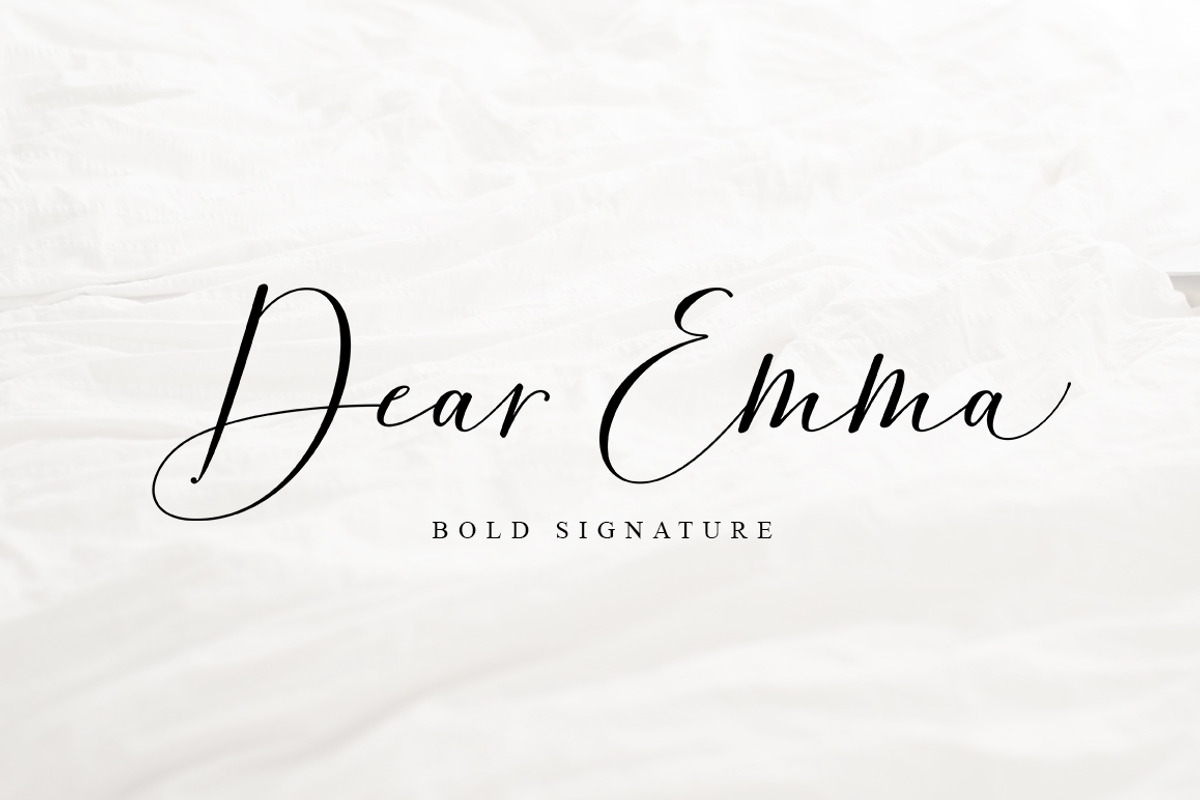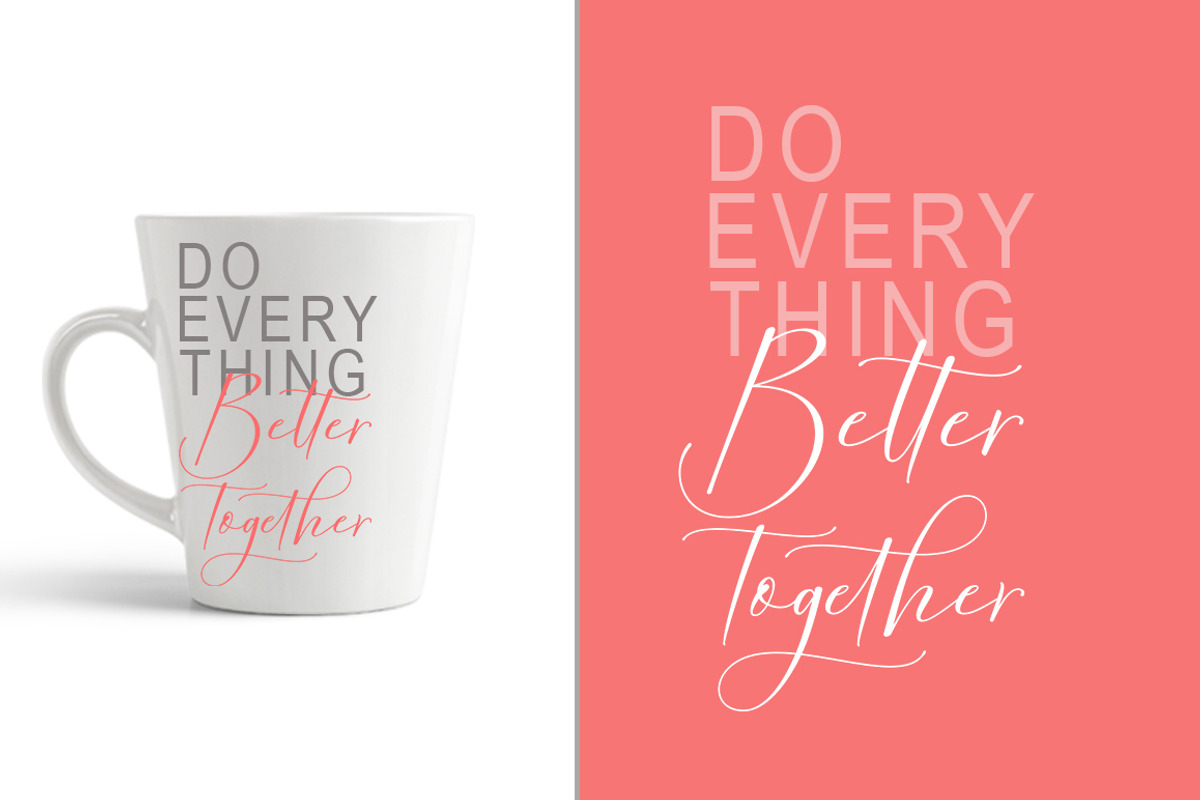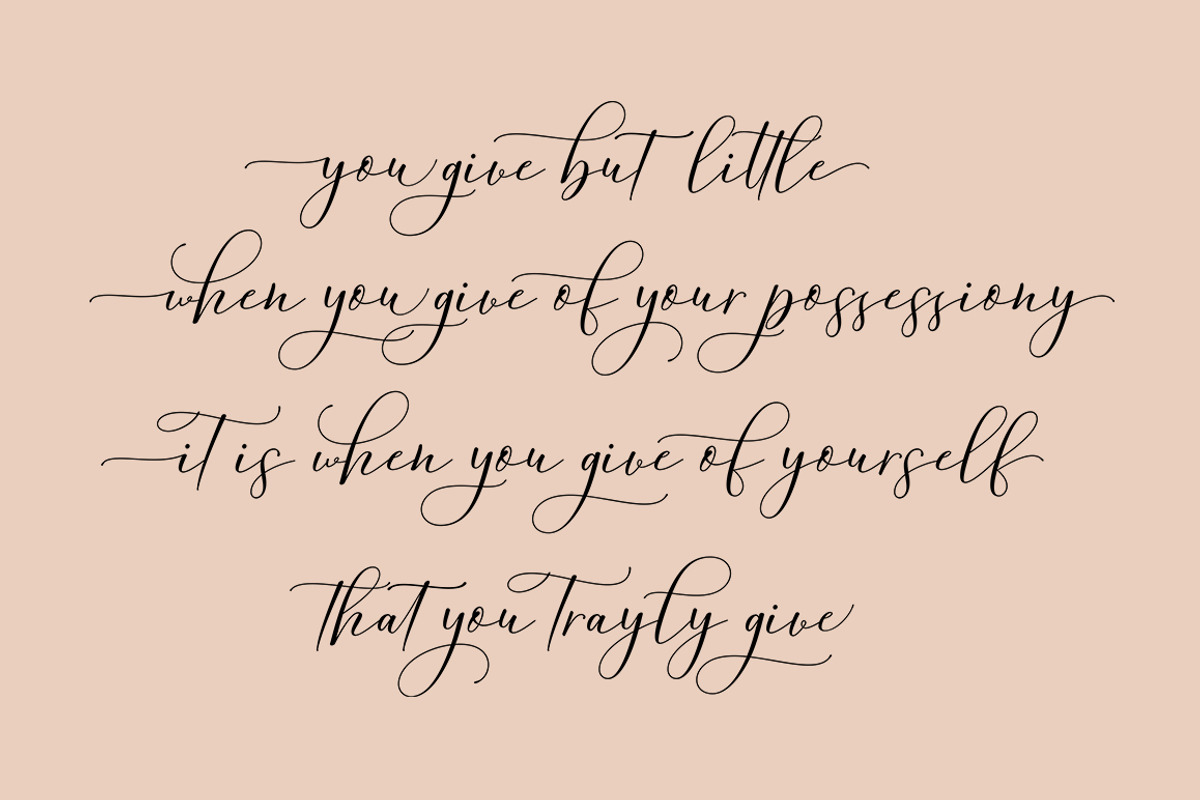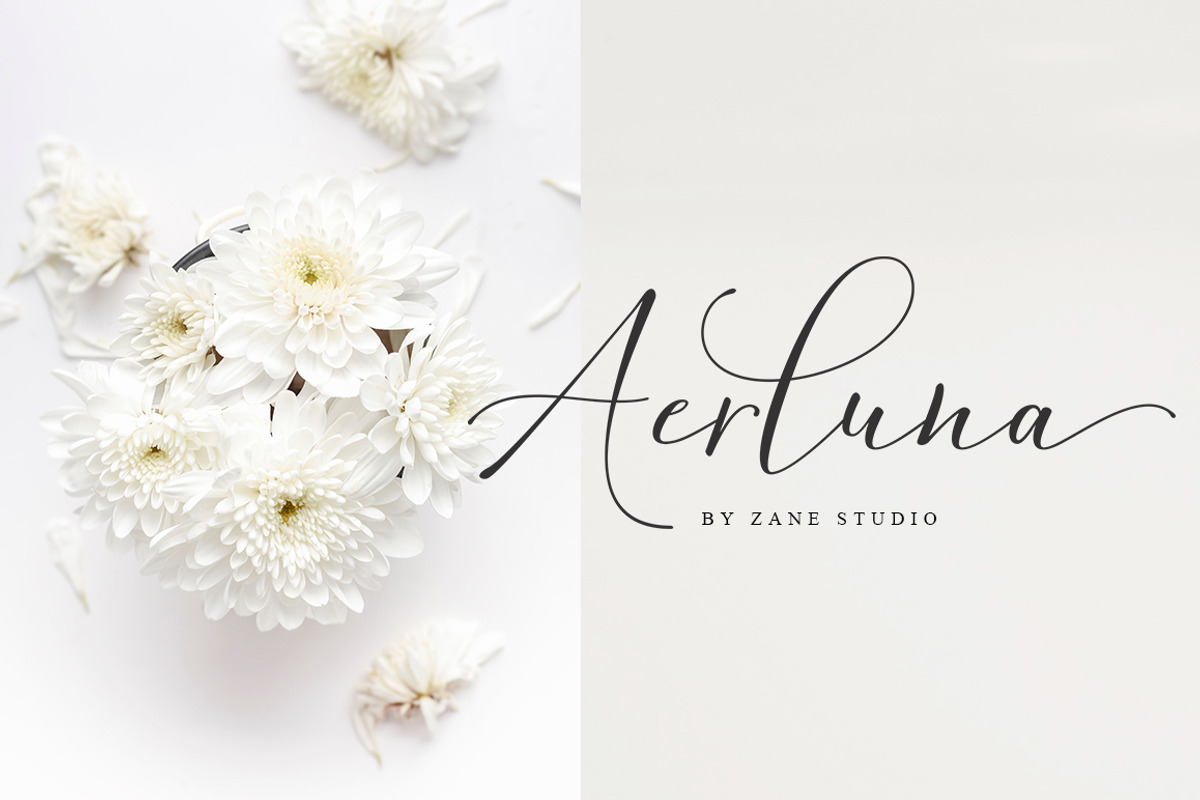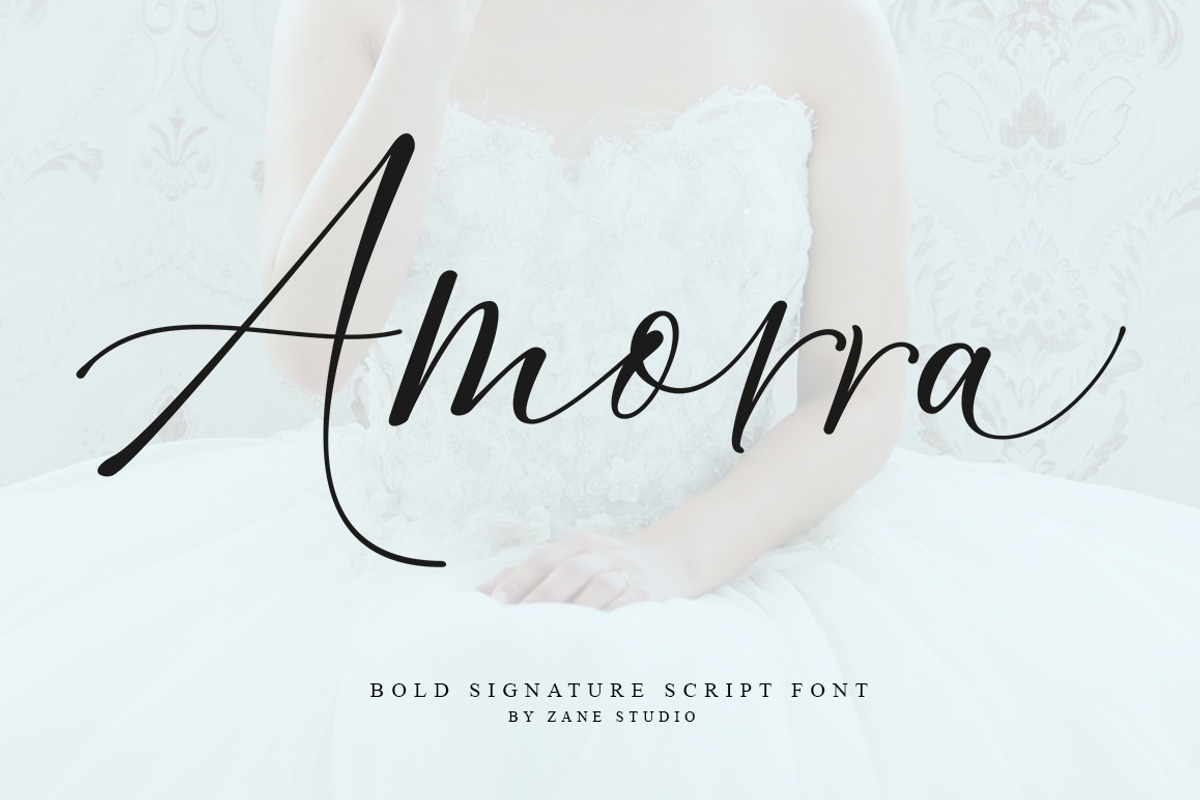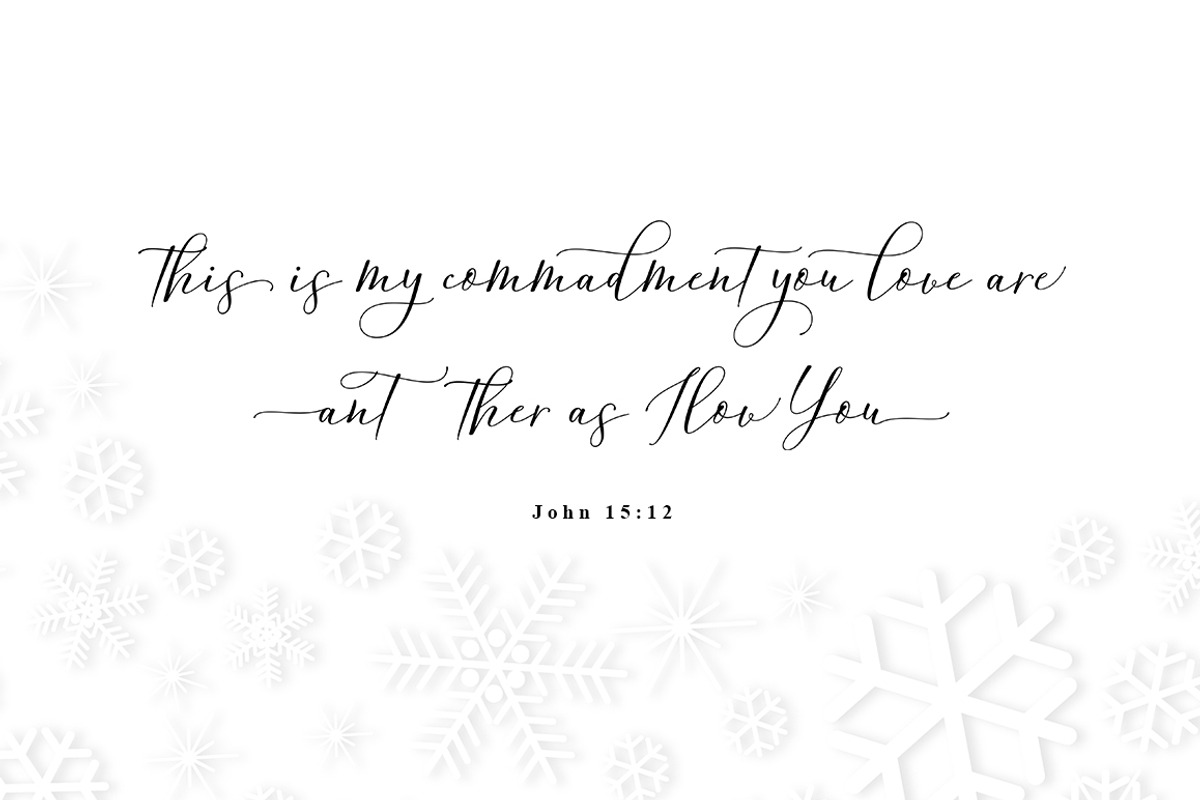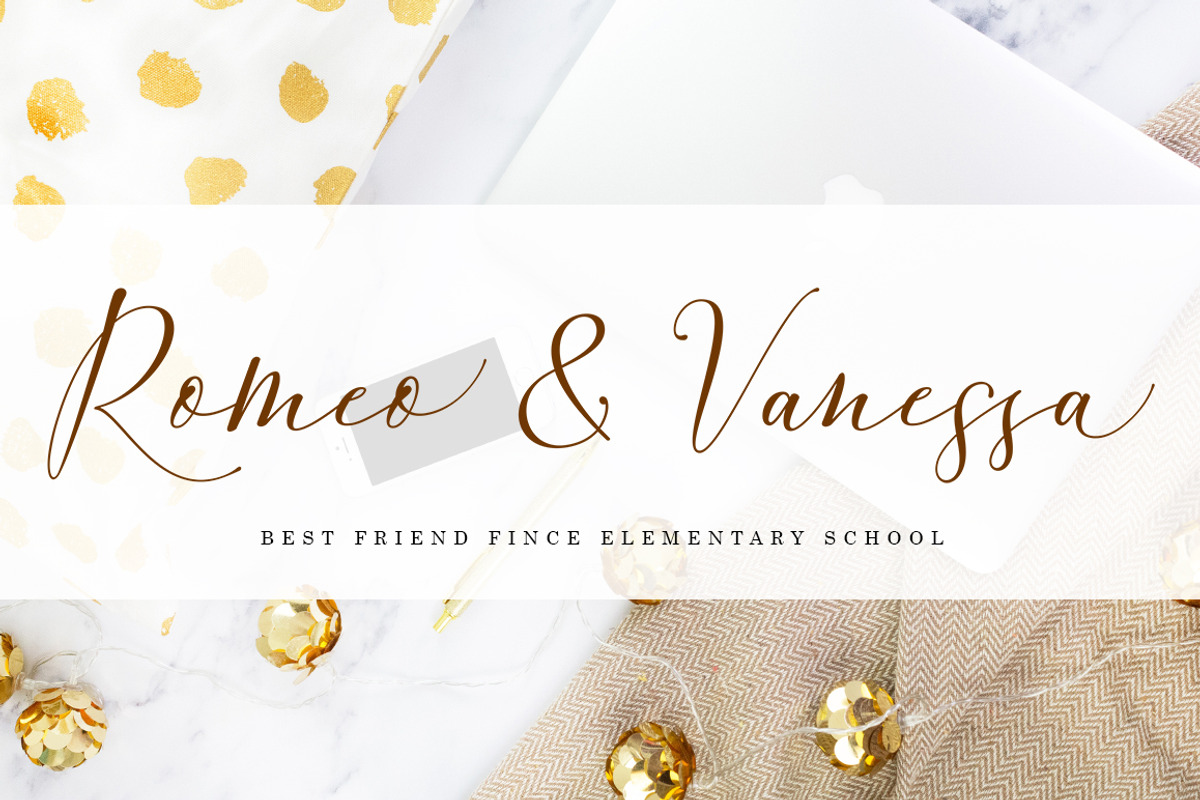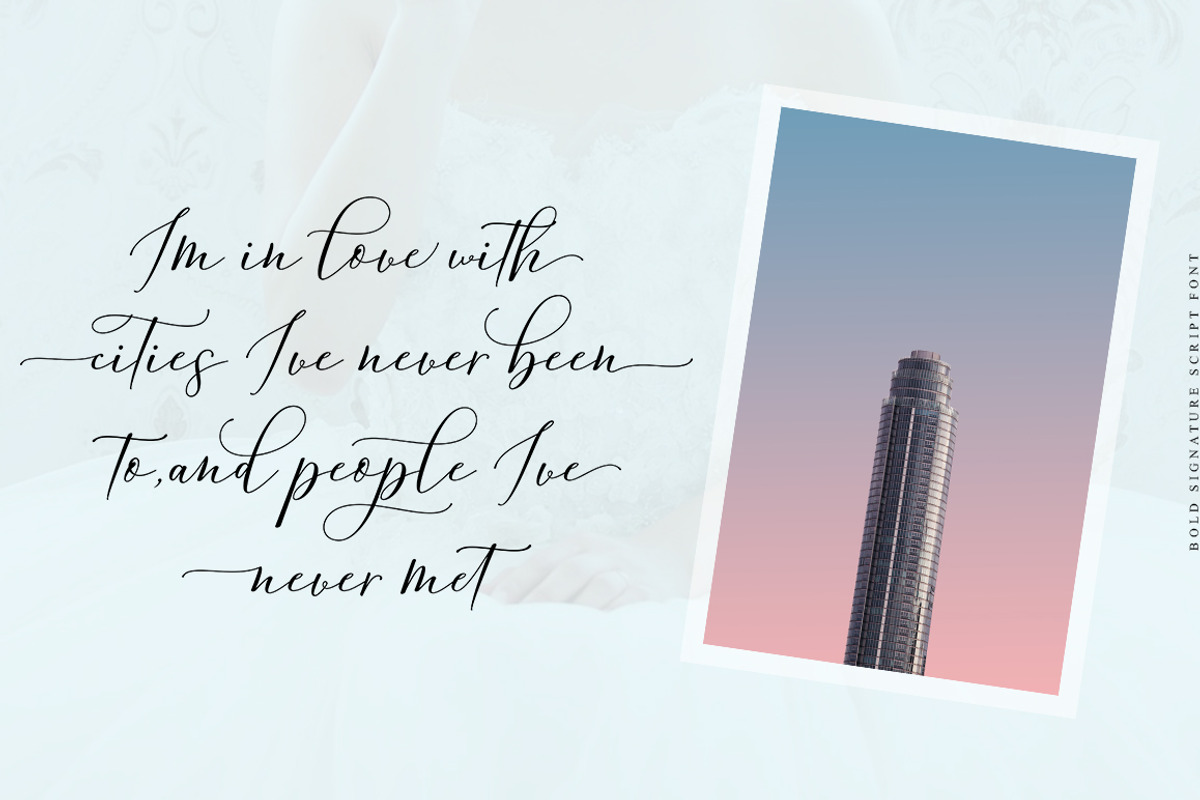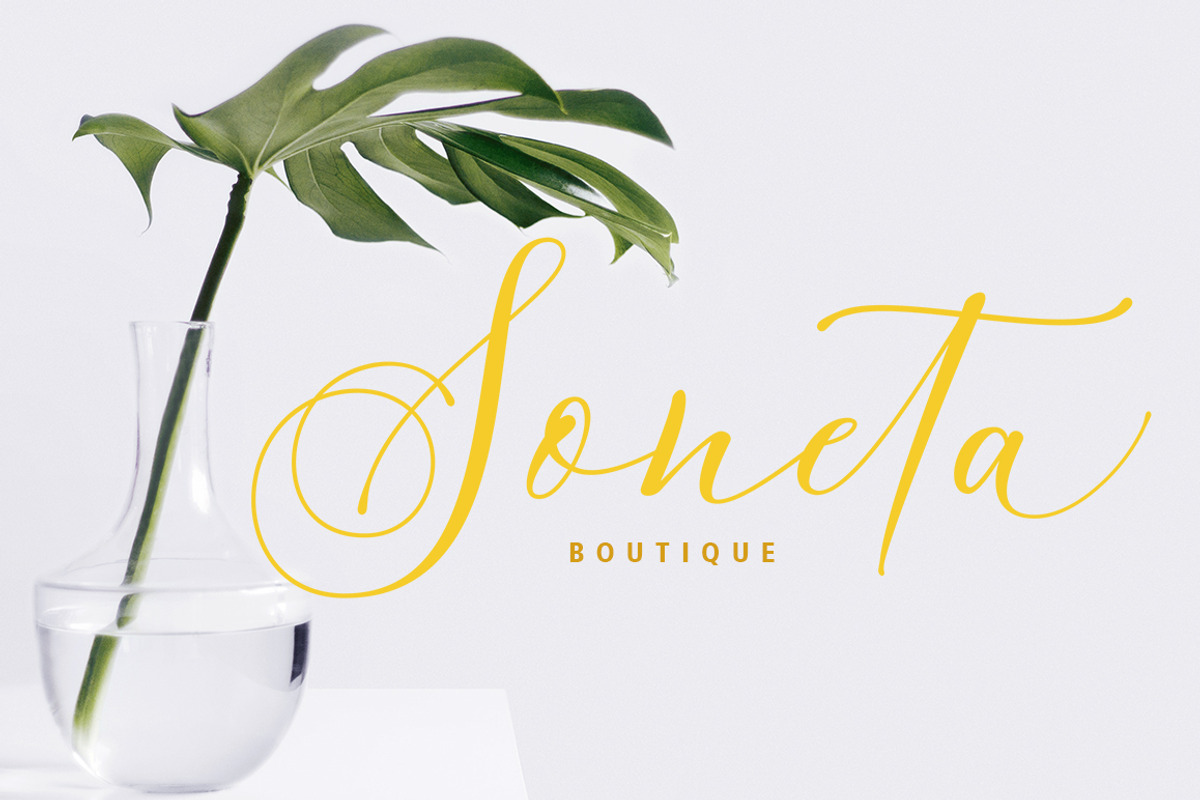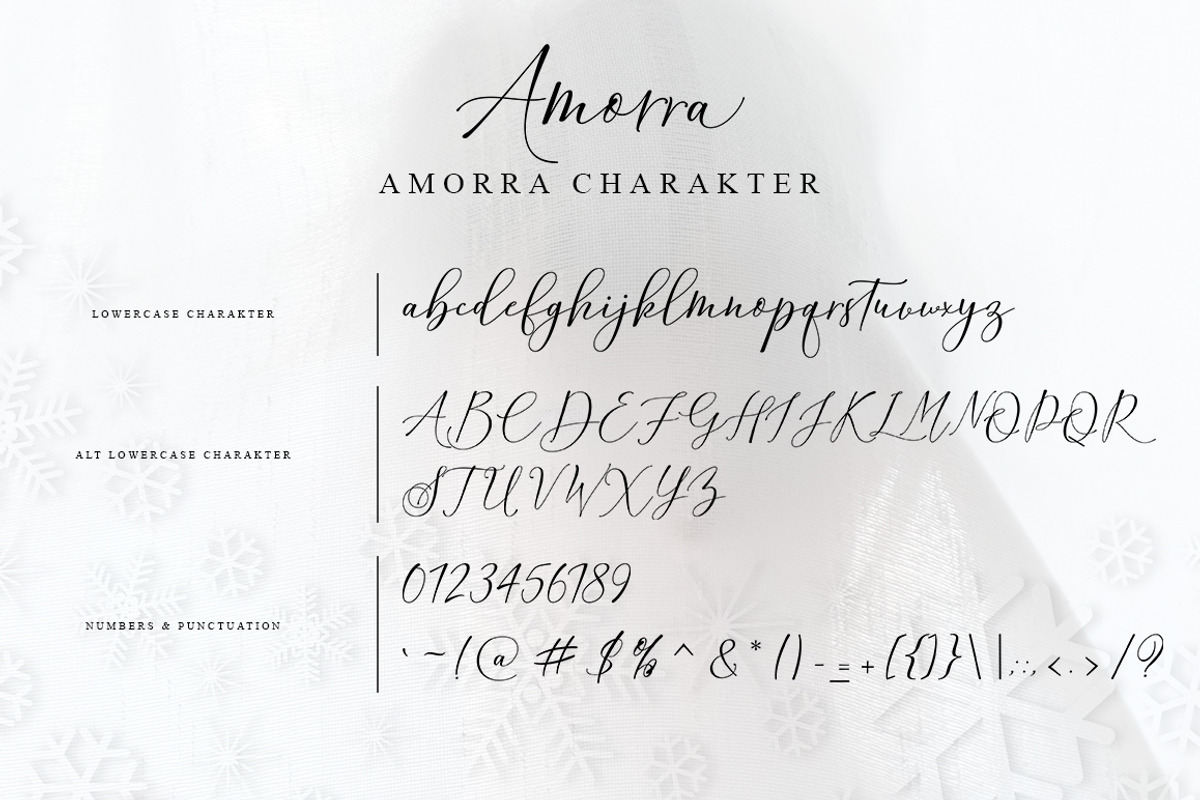
Amorra Script
Introducing the Amorra Script font.
Amorra Script. This is a classic thin font with italics style. Here you will get a beautiful classic font. This font is available in several modern rounds that can make your work look elegant,sweet and perfect.
With this style, this font will be suitable for logos, branding projects, household designs equipment, product packaging, mugs,quotes, posters, shopping bags,logos, t-shirts, book covers, business cards, invitation cards, greetings card, and all the other beautiful projects.
Amorra Script, including various language support. You can use this font for your work easily. Because there are many features in it. Contains complete set upper and lower case letters, punctuation,numbers, and multilingual support. This font also includes several ligaments and lternatives Style Set Style For those of you who have good software OpenType function (Corel Draw / Photoshop / Illustrator / InDesign).